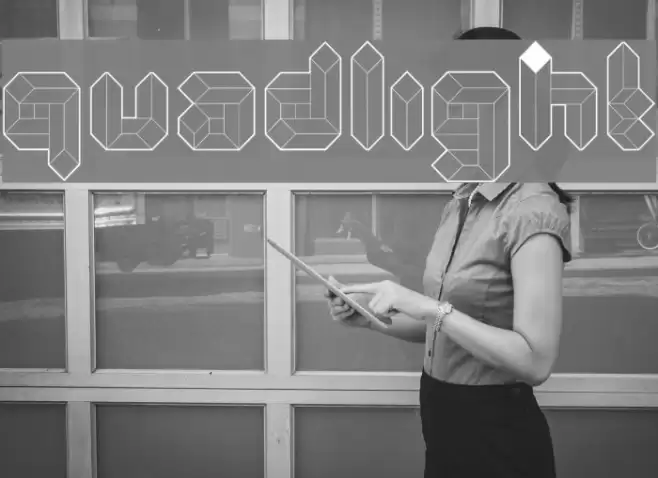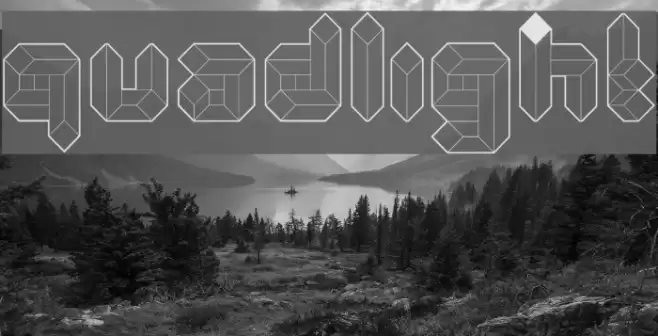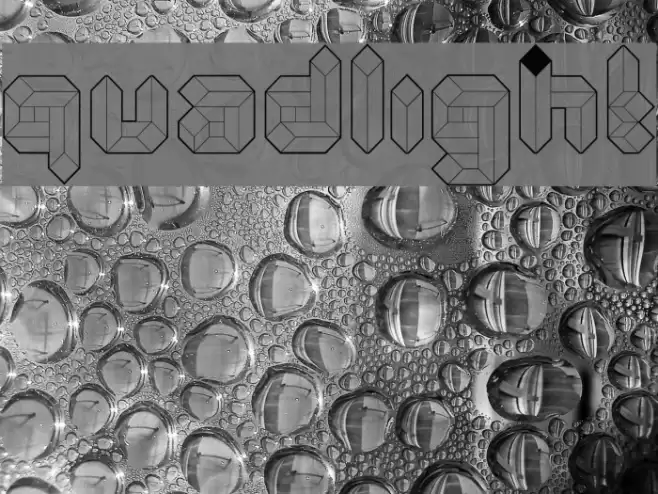
Quad-Light Font
Quad-Light Description
This font features a geometric, three-dimensional design that gives each character a block-like appearance. The letters are constructed with a series of lines and angles, creating an intricate pattern that resembles an architectural blueprint. The style is highly decorative, with a futuristic and technical feel. The characters are uniform in width, contributing to a monospaced appearance, and the overall design is clean and precise. This font stands out due to its unique, structural aesthetic, making it suitable for projects that require a modern and innovative look.
A geometric, three-dimensional font with a block-like, architectural design from Uncategorized fonts.
- Proposed Projects: Ideal for futuristic branding, architectural designs, tech-related projects, and modern art installations.